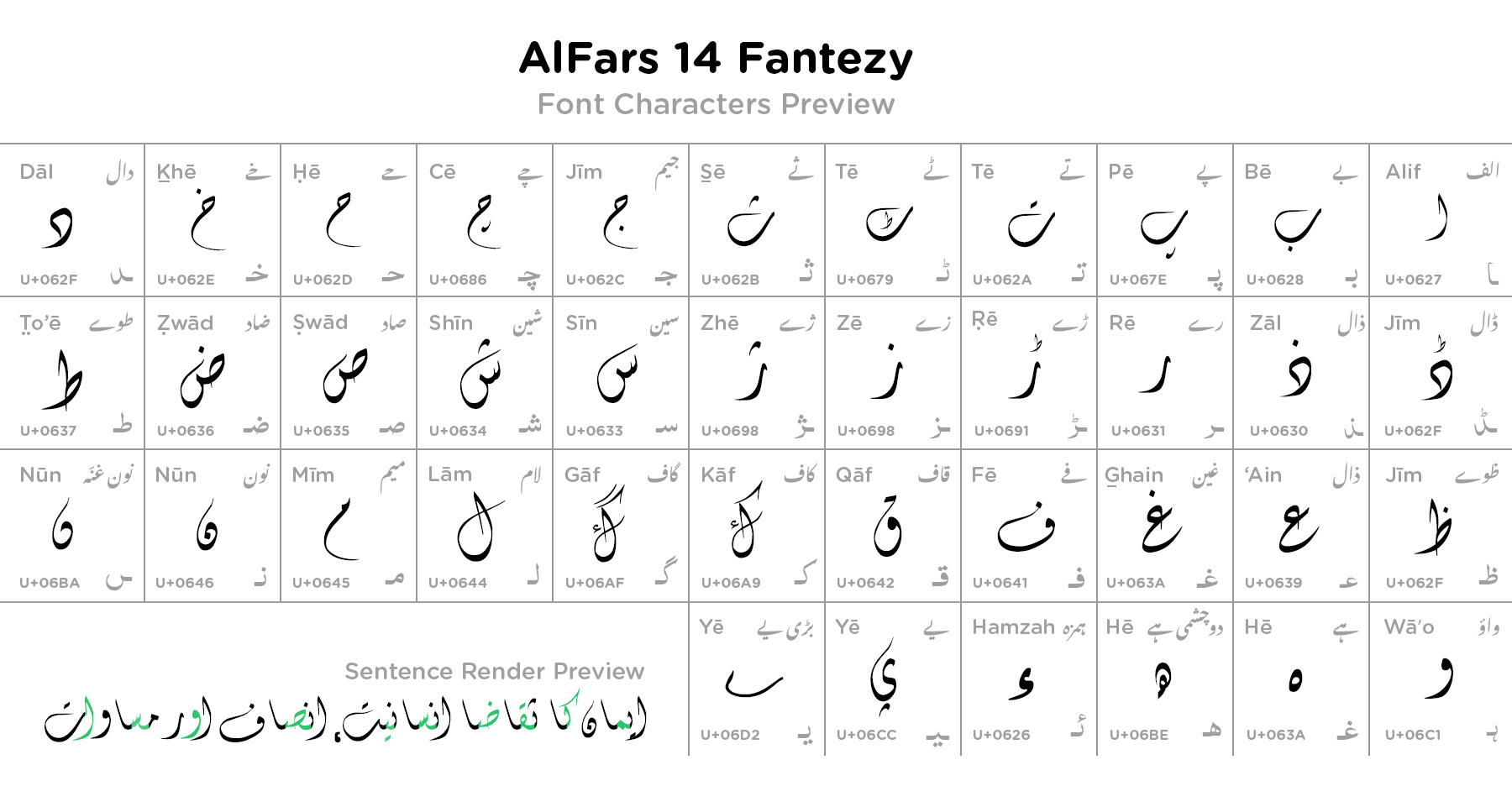
AlFars 14 Fantezy, designed by Syed Irtiza Hassan Rizvi, is a captivating Arabic font that represents elegance and ornamental beauty. It was released in 2016, mesmerizing readers with its flowing, delicate letterforms. Drawing inspiration from the Diwani script of the Ottoman era, this decorative font features intricate flourishes, elaborate connections between letters, and variations in thickness, exuding sophistication and cultural richness. Perfect for calligraphic artwork and design accents, the font adds a touch of fantasy and ornamental charm to projects. Its digital accessibility makes it well-suited for graphic design and artistic applications, allowing designers to create visually striking and unique compositions.